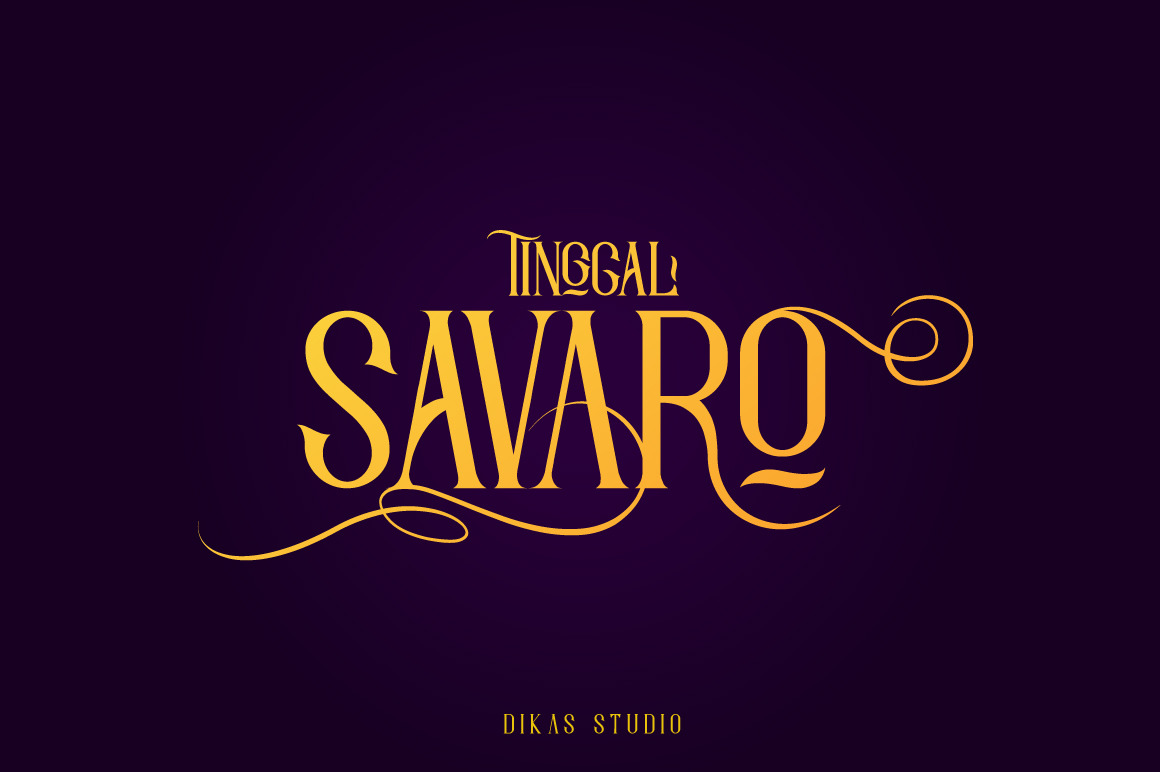
Savaro Typeface
Hello friend, let me introduce my product Savaro Typeface
Savaro is all caps font with elegant style, and have 2 style Regular and Spurs. You can mix any alternate character, stylistic alternate and swashes, its very helpfull to make this font look stylish. Savaro is perfect to create any your vintage design project such us branding, logos, product packaging, invitation, qoutes, t-shirt, label, name card, badge, poster etc.
Lowercase
Punctuation and Number
Multilingual Language
Alternate Character
Stylistic Set 01
Ligature
Swashes and Special Character